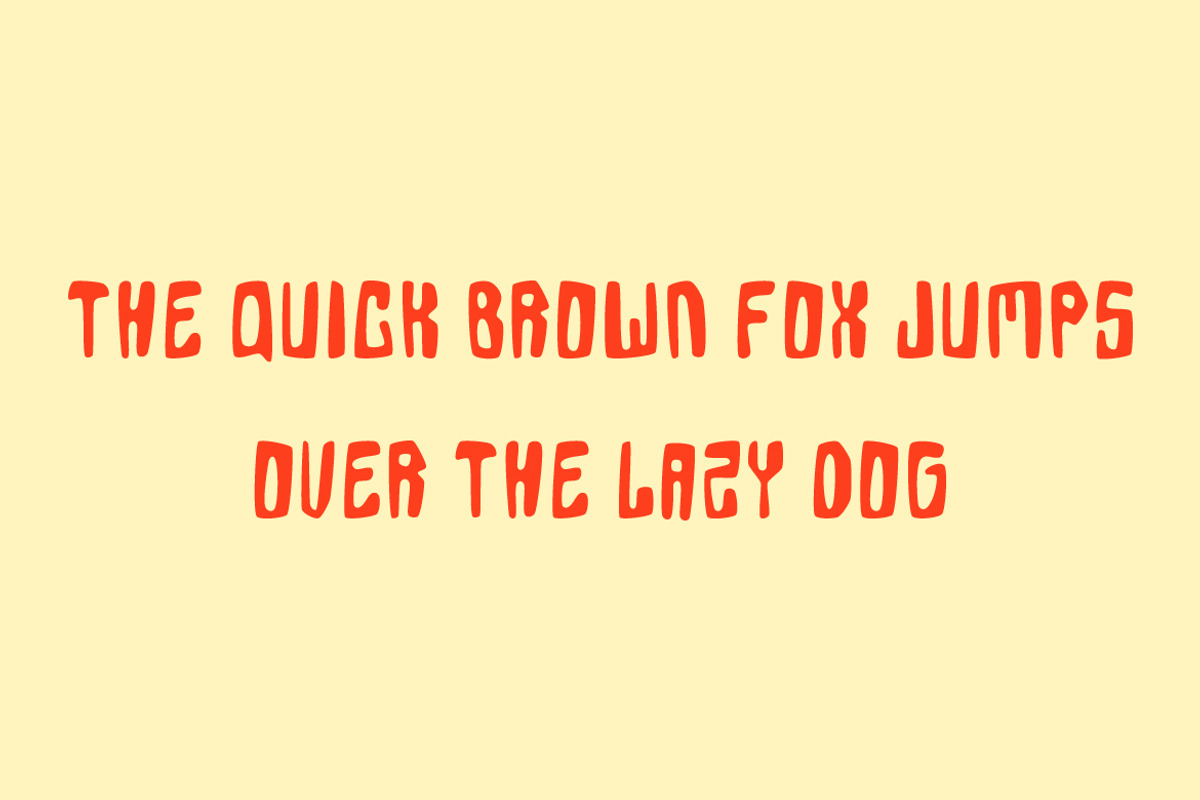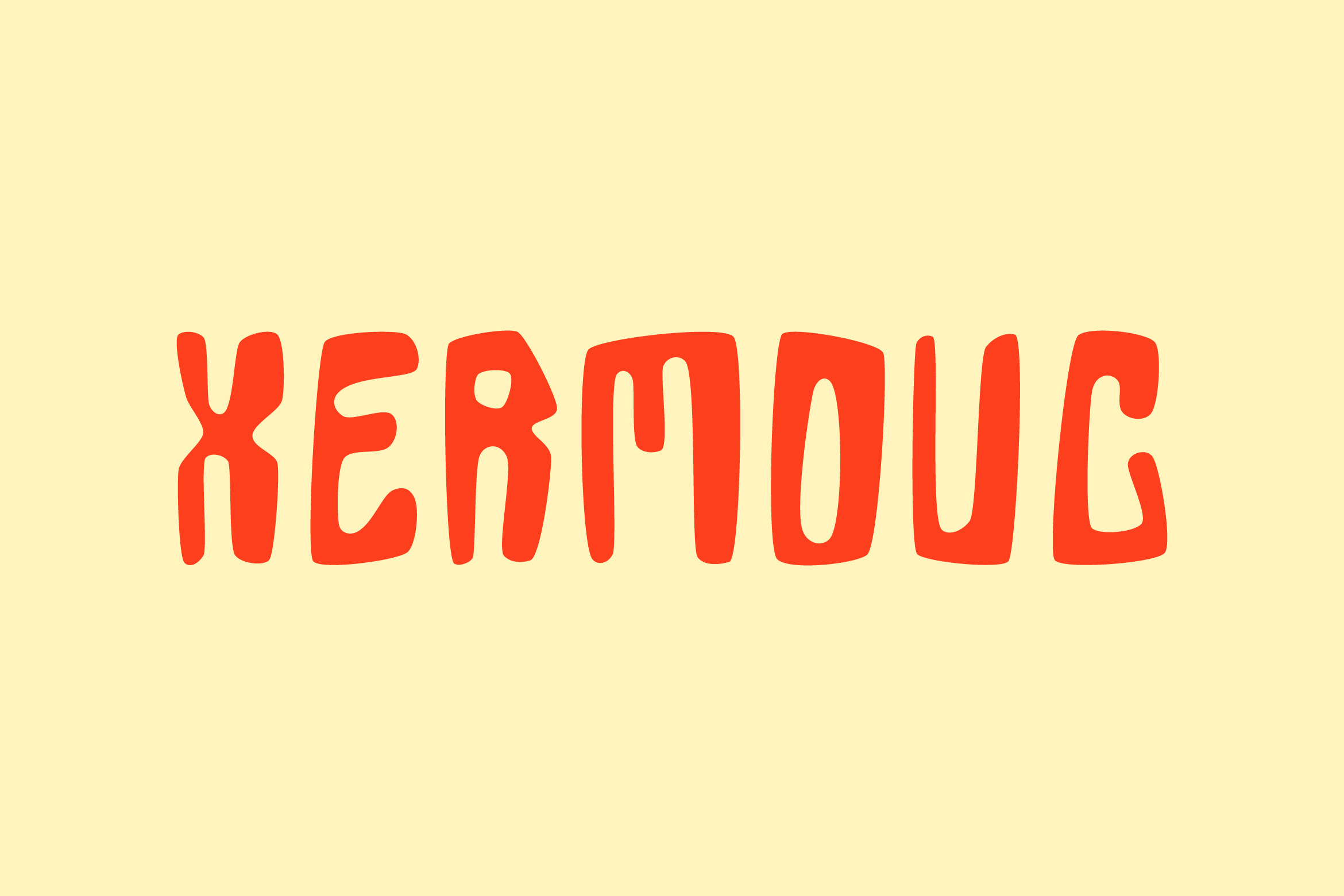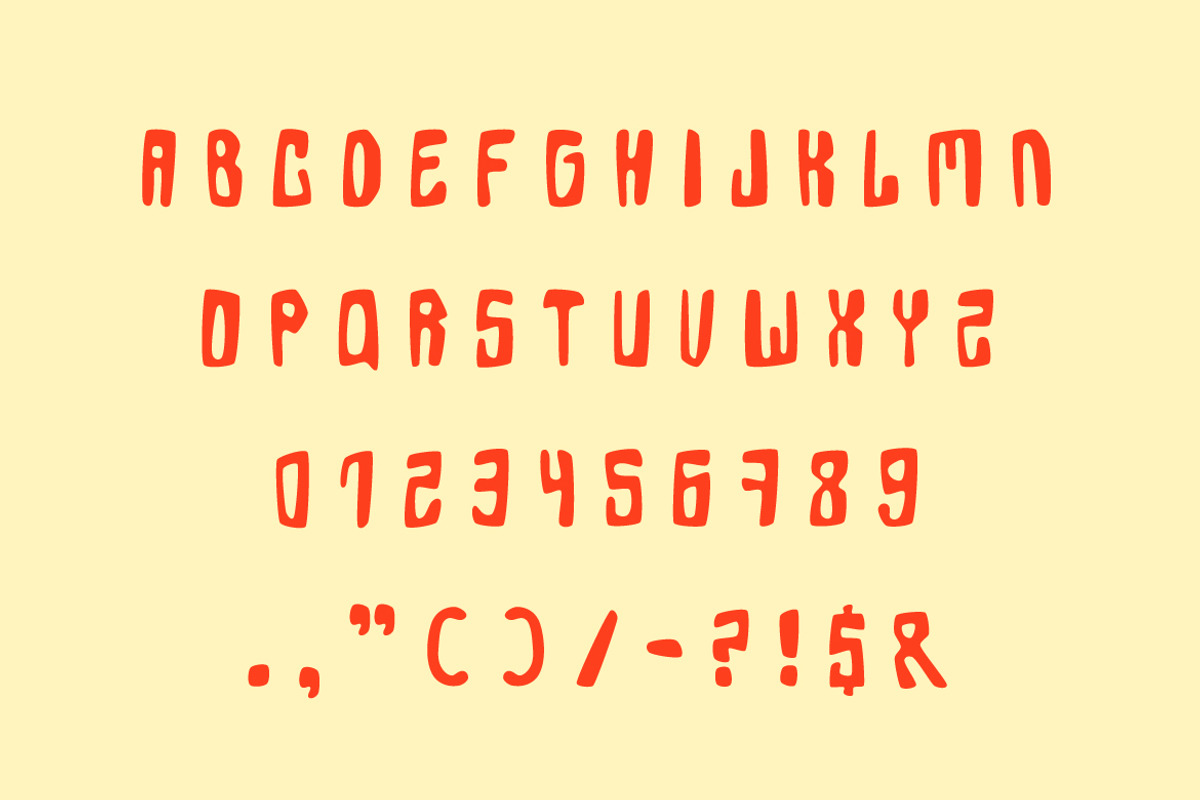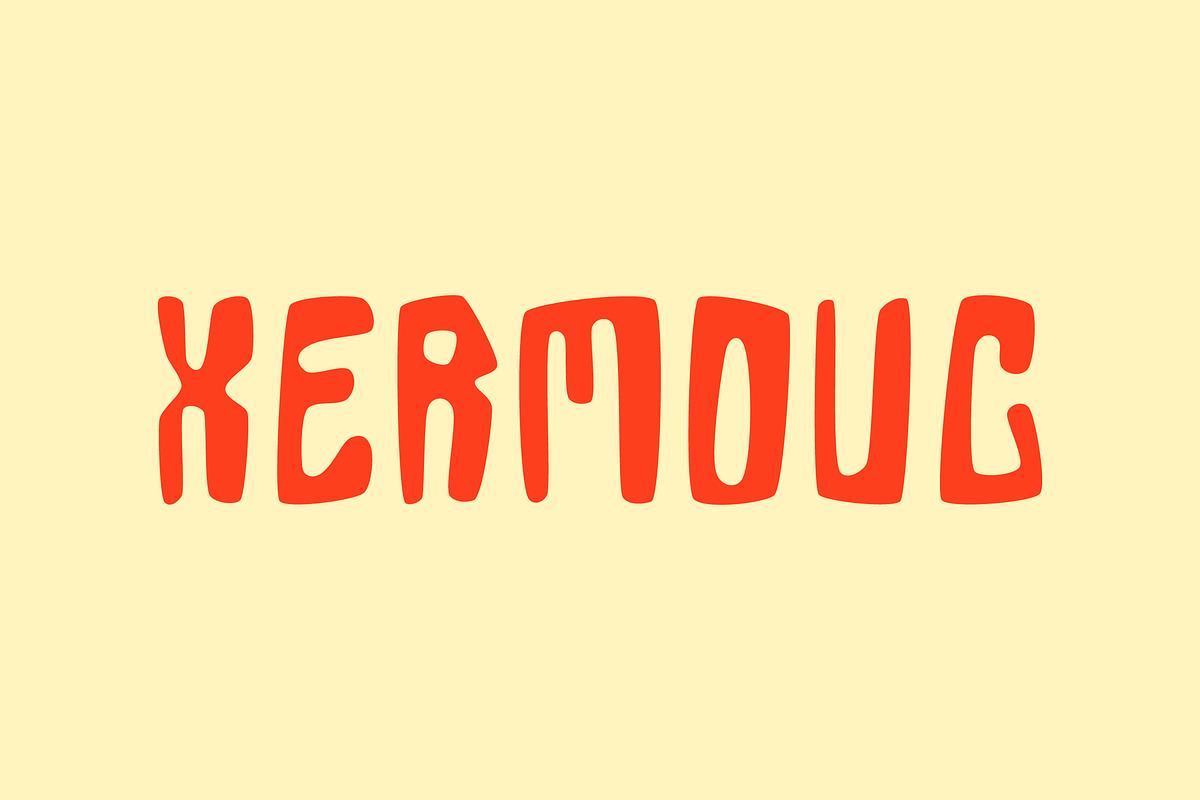
Xermouc -Playful Display Font
Xermouc is a bold and playful display font designed to bring energy and fun to your projects. With its dynamic shapes and expressive style, it’s perfect for logos, posters, branding, kids' designs, gaming, and eye-catching headlines. Let Xermouc add a vibrant and modern touch to your creative work!